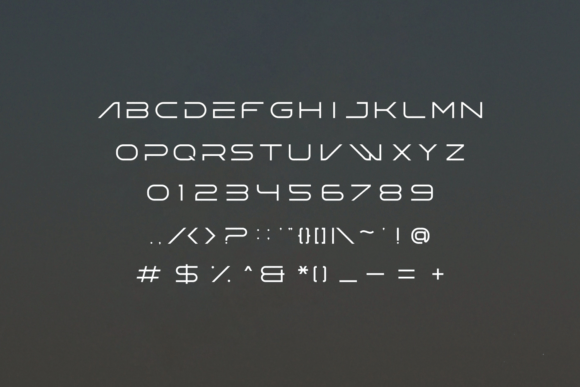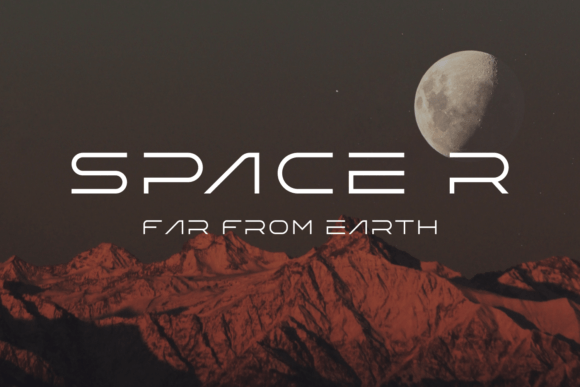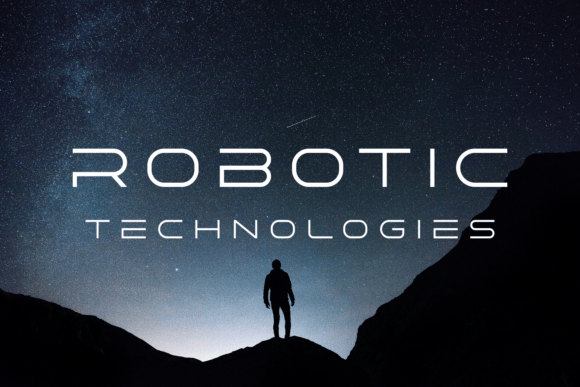
Introducing Avapore Font: The Ultimate Modern and Futuristic Display Font
In the world of design, fonts play a crucial role in conveying the message and aesthetic of a brand. For designers and crafters looking for a font that embodies a modern and futuristic vibe, Avapore Font is the perfect choice. This display font is designed to give your branding projects a techno and sci-fi look that’s sure to captivate your audience.
What is Avapore Font?
Avapore is a modern and futuristic display font that is perfect for any branding project that requires a bold and eye-catching look. Its sleek and futuristic design makes it ideal for logos, t-shirt printing, creative products, and any other project that needs a techno or sci-fi aesthetic.
Key Features of Avapore Font
• Modern and Futuristic Design: Avapore Font boasts a sleek and modern design that’s perfect for brands looking to convey a sense of innovation and forward-thinking.
• Display Font: As a display font, Avapore is designed to make a statement and grab attention. It’s perfect for headlines, titles, and any other text that needs to stand out.
• Techno and Sci-Fi Look: With its futuristic design, Avapore Font is perfect for projects that require a techno or sci-fi aesthetic, such as video game designs, sci-fi movie posters, or tech product branding.
• Highly Versatile: Avapore Font can be used for a wide range of projects, from logos and t-shirt printing to creative products and more.
Use Cases for Avapore Font
Avapore Font is perfect for a variety of design projects, including:
• Logo Design: Create a bold and eye-catching logo that makes a statement with Avapore Font.
• T-Shirt Printing: Add a futuristic touch to your t-shirt designs with Avapore Font.
• Creative Products: Use Avapore Font to add a techno or sci-fi aesthetic to your creative products, such as phone cases, stickers, or posters.
• Branding and Advertising: Use Avapore Font to create bold and attention-grabbing headlines and titles for your branding and advertising campaigns.
Why Choose Avapore Font?
With so many fonts available, why choose Avapore Font? Here are just a few reasons:
• Unique and Eye-Catching Design: Avapore Font boasts a unique and eye-catching design that’s sure to make your projects stand out.
• High-Quality: Avapore Font is a high-quality font that’s designed to deliver crisp and clear text, even at large sizes.
In conclusion, Avapore Font is the perfect choice for designers and crafters looking for a modern and futuristic display font. With its sleek and futuristic design, Avapore Font is perfect for any branding project that requires a techno or sci-fi aesthetic. Whether you’re creating a logo, t-shirt design, or creative product, Avapore Font is sure to make a statement and grab attention.